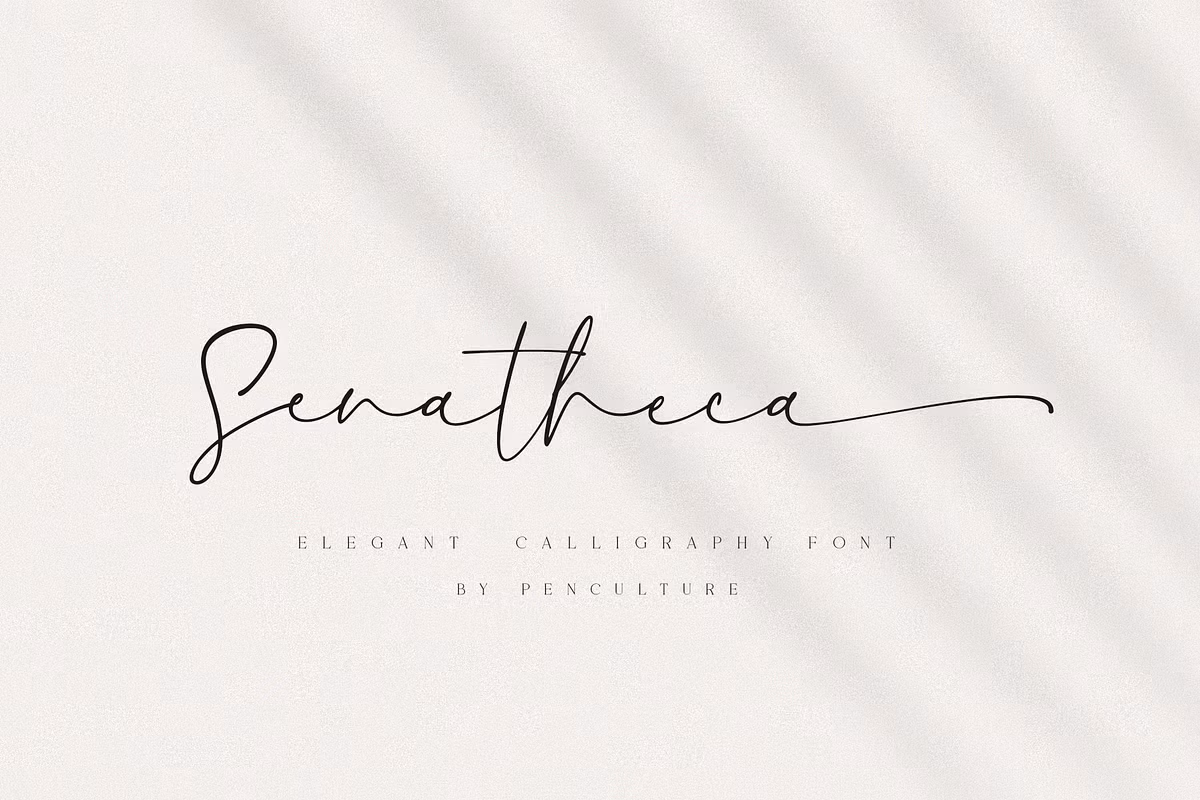
Senatheca Calligraphy Font Free Download
Please note, to use this font for commercial purposes, you must purchase the full version. Senatheca is a stunning calligraphy font that combines elegance and sophistication with flowing, handcrafted letterforms. Perfect for wedding invitations, branding, logos, and creative projects, this font adds a personal and artistic touch to your designs. Whether you're working on a high-end event, a luxury brand, or a romantic project, Senatheca brings beauty and refinement to your work. Test it out and enjoy free download access for personal use. Experience the elegant, handwritten beauty of Senatheca Calligraphy Font Free Download before purchasing the commercial license. Add a graceful, calligraphic style to your designs with Senatheca.